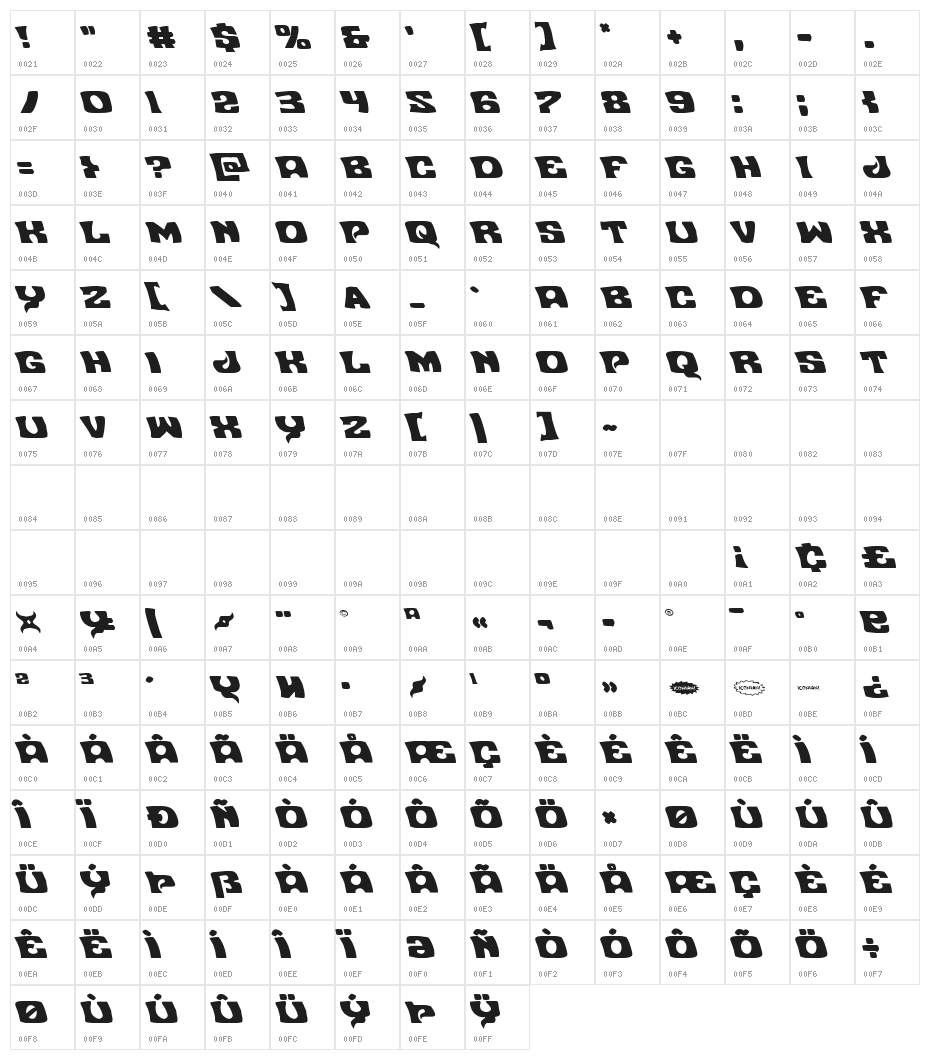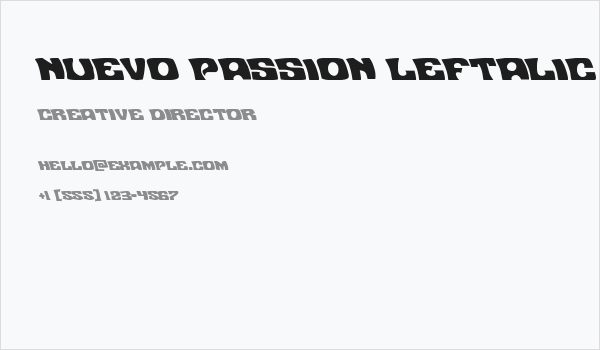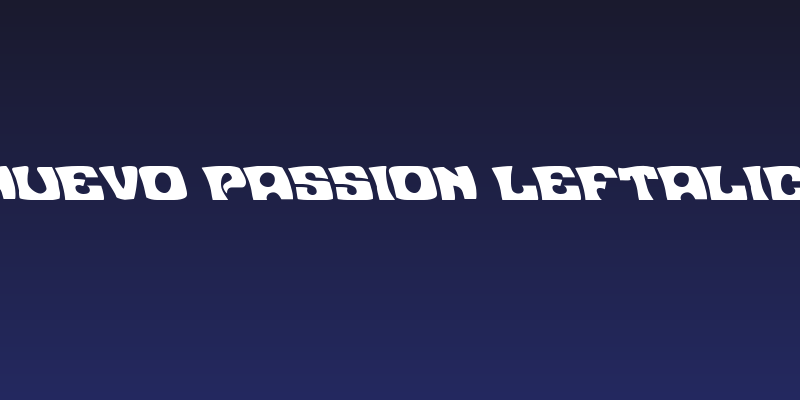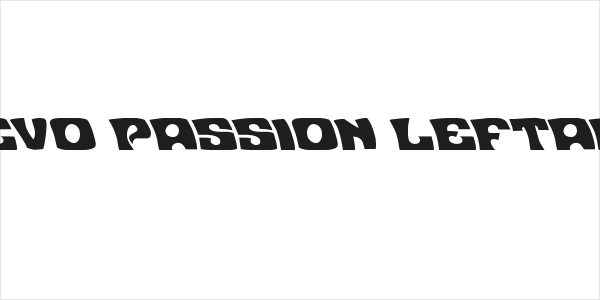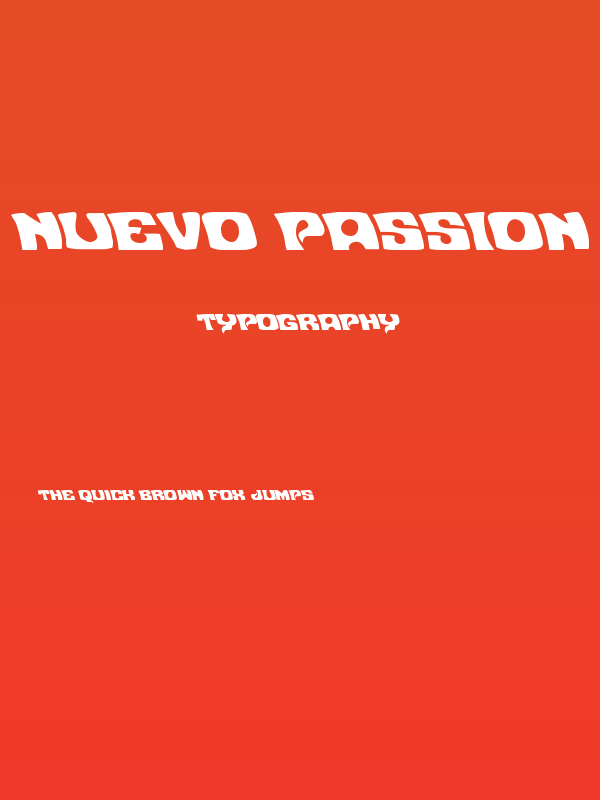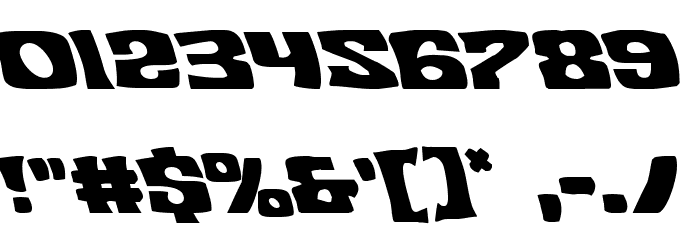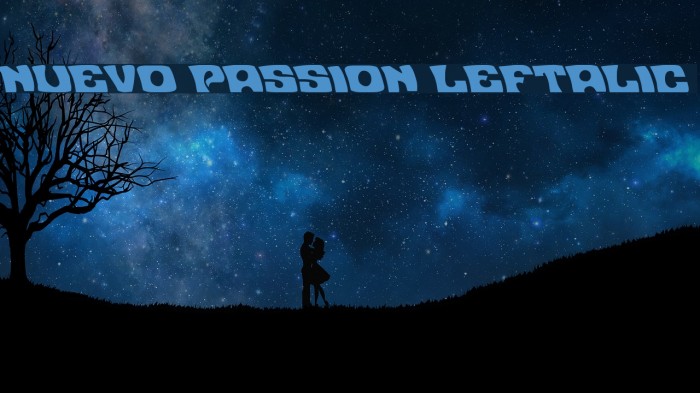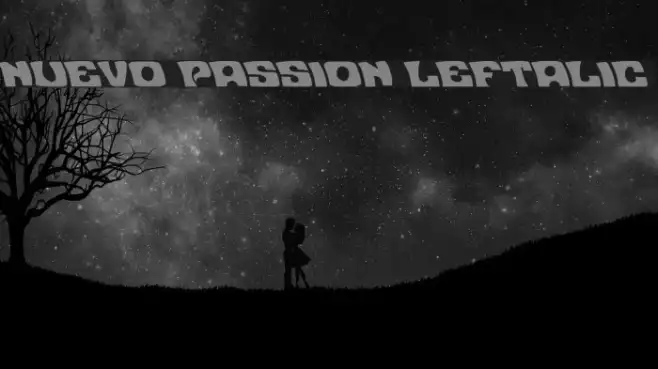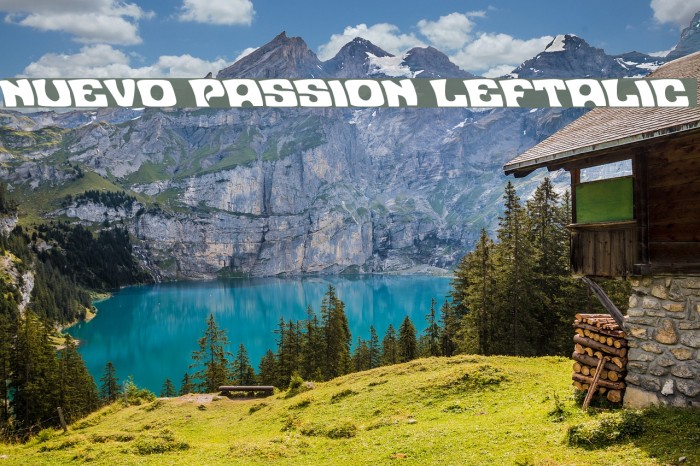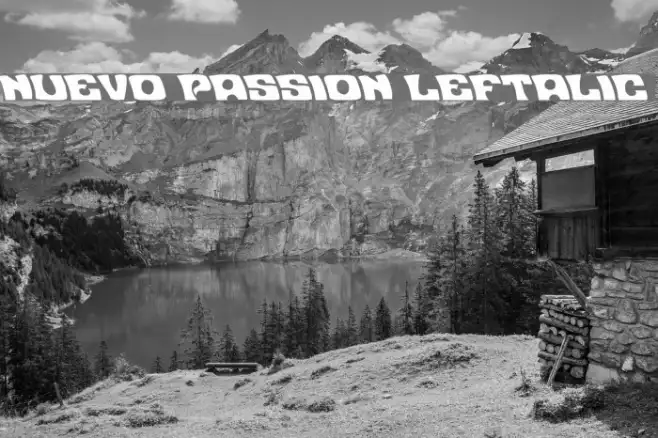
Nuevo Passion Leftalic Font
Nuevo Passion Leftalic Description
This font features a bold and dynamic style with a distinct leftward slant, giving it a sense of motion and energy. The characters are thick and robust, with a playful and slightly irregular shape that adds a unique personality. The uppercase and lowercase letters maintain a consistent weight, while the numbers and special characters follow the same bold aesthetic. The overall design is eye-catching and suitable for creative and expressive projects.
| Proposed Projects | Ideal for posters, logos, and branding projects that require a bold and energetic look. |